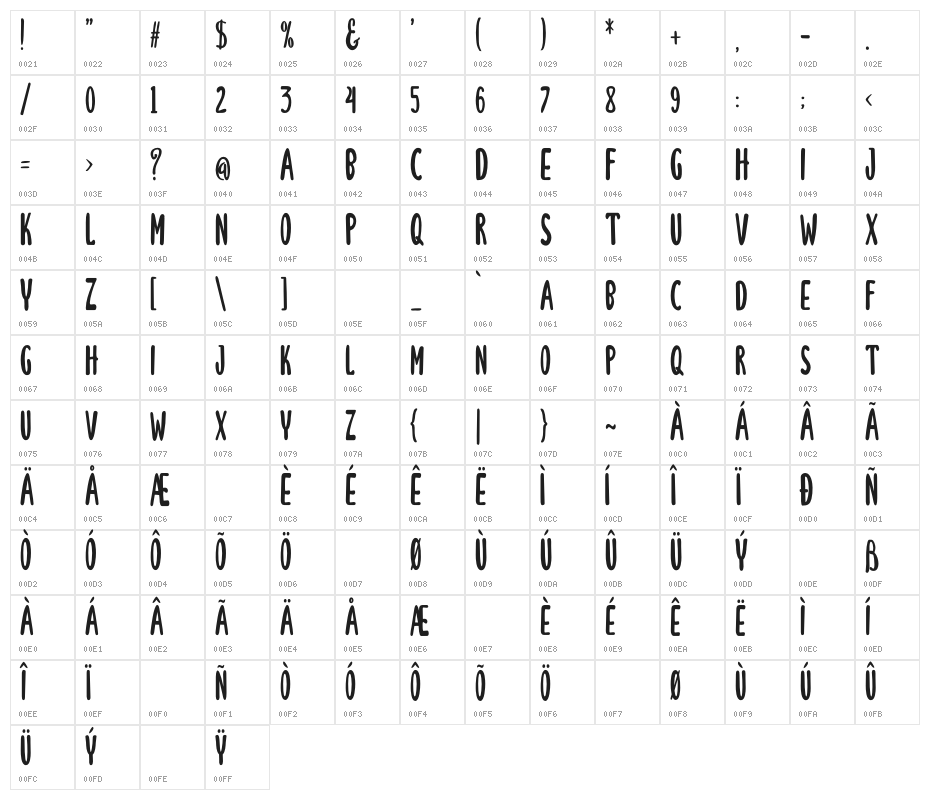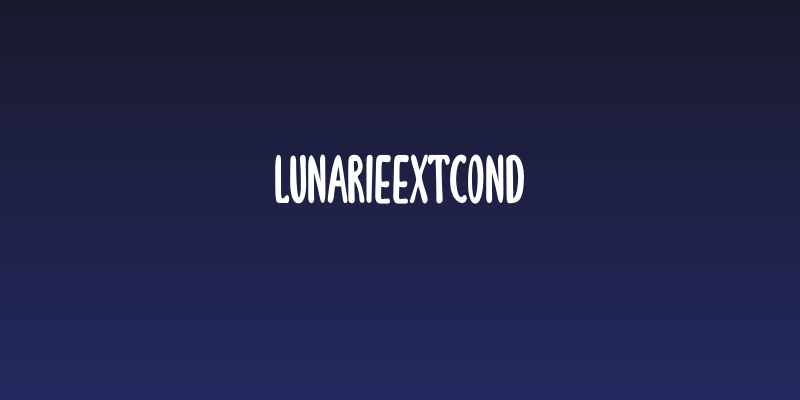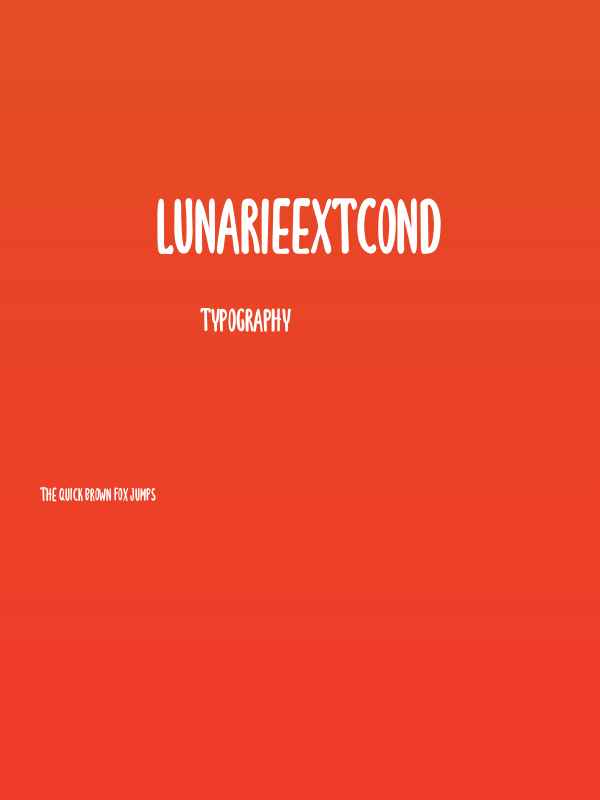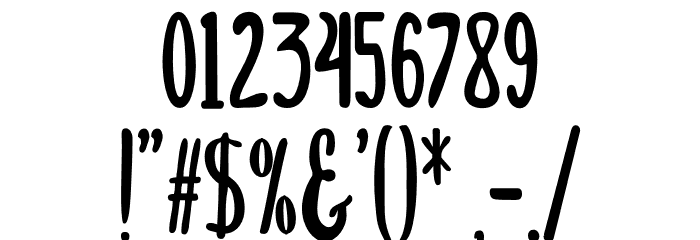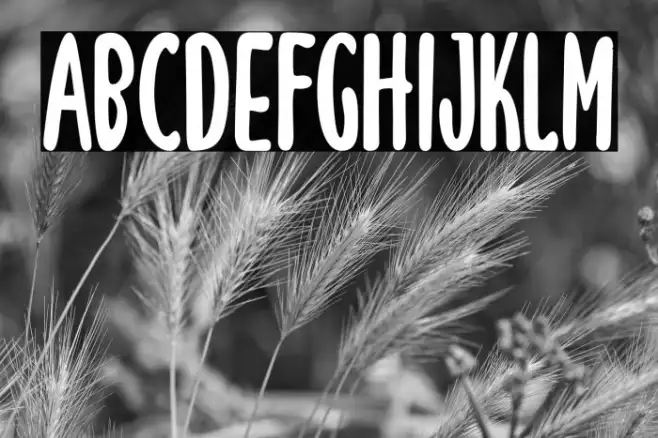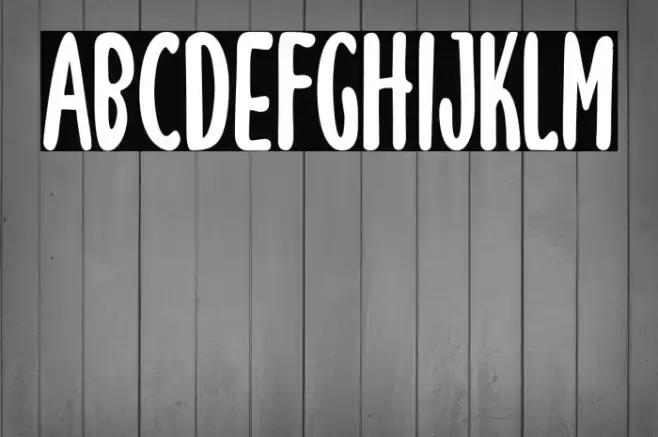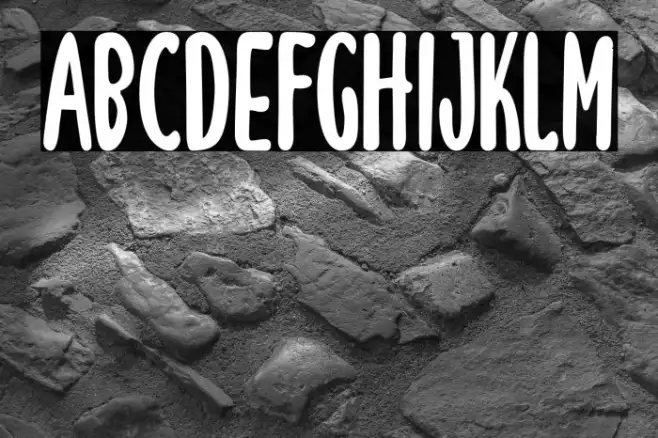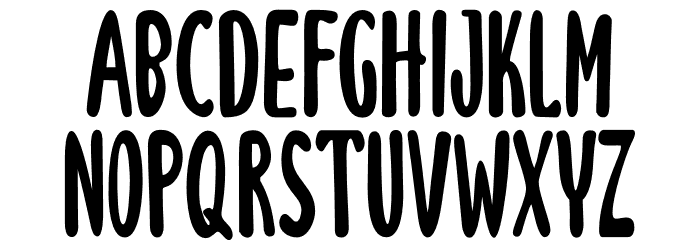
LunarieExtCond Font
LunarieExtCond Description
This font features a playful and bold design with a handwritten style, characterized by its extended and condensed letterforms. The strokes are thick and consistent, giving it a strong presence. The uppercase and lowercase letters maintain a uniform height, adding to its cohesive appearance. The numerals and special characters are crafted to match the overall style, ensuring versatility across different uses. Its casual yet impactful look makes it suitable for projects that require a friendly and approachable feel.
| Proposed Projects | Ideal for children's books, playful branding, casual invitations, and social media graphics. |